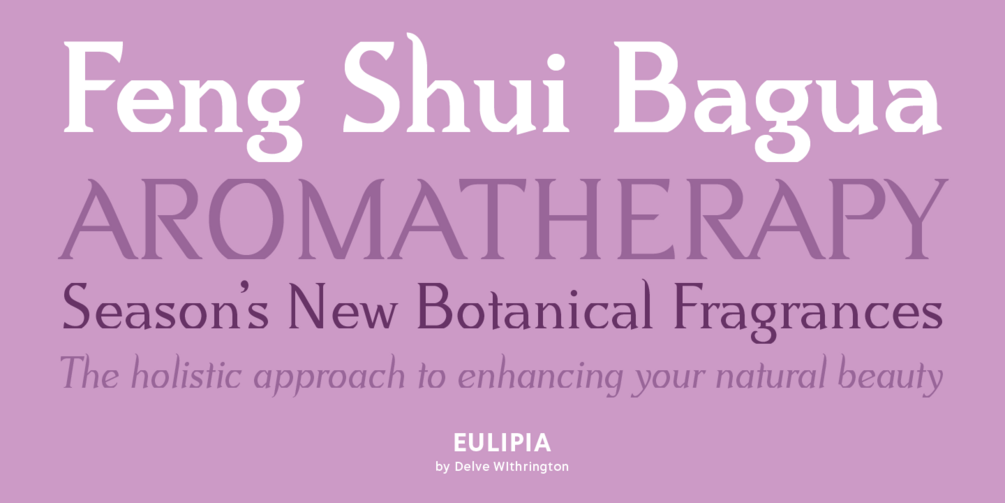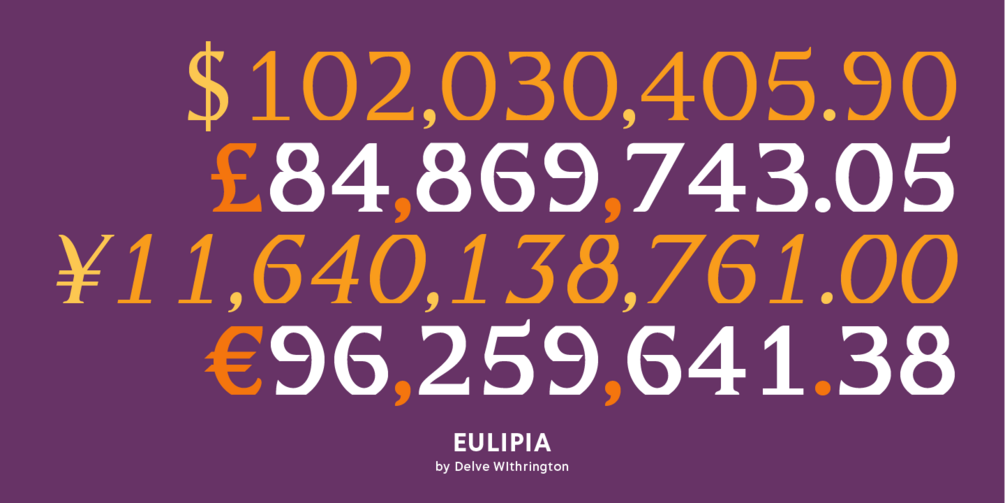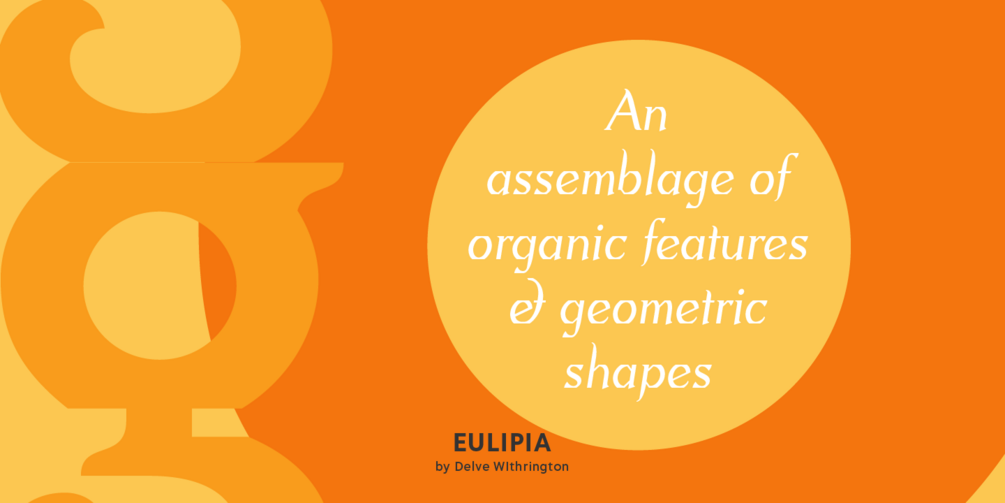
The beautiful foliage of the Marin Headlands in California inspired designer Delve Withrington to create Eulipia; a design that is at once elegant, daring, and intriguing.
Eulipia is a unique typeface that integrates organic features and geometric shapes for a fresh take on contemporary serif designs. The flat tops and bottoms of the rounded strokes recall letterforms made by a broad-nibbed calligraphy pen when held level.